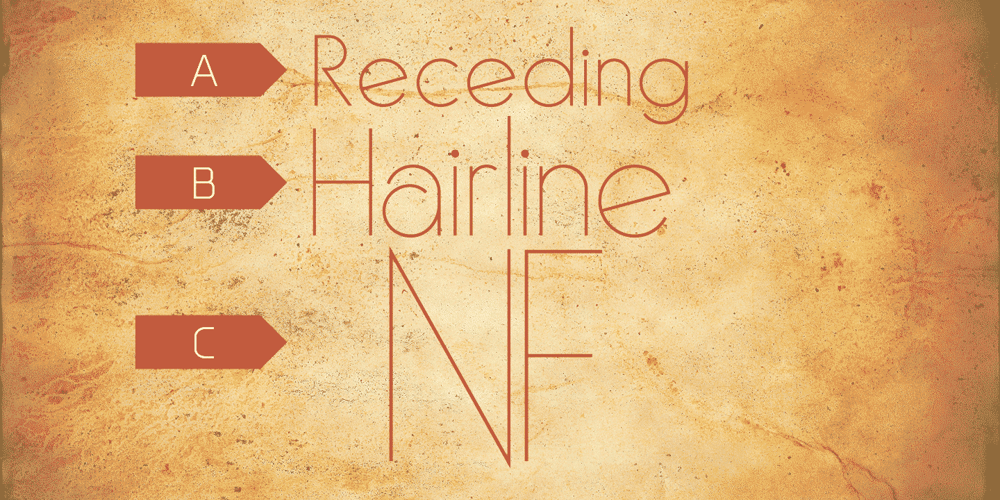
Receding Hairline NF Font Family was designed by Tom Carnase, Herb Lubalin, Nick Curtis and published by Nick’s Fonts. Receding Hairline NF contains 3 styles and family package options. Based on L&C Hairline, this family of faces is weighted to achieve stroke consistency in a variety of sizes. Both versions of this font support the Latin 1262, Central European 1250, Turkish 1254 and Baltic 1257 codepages.